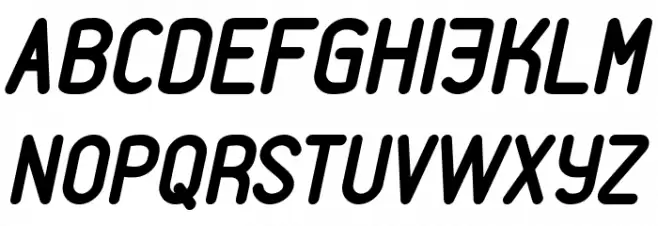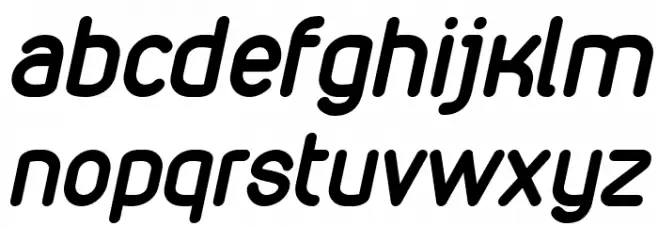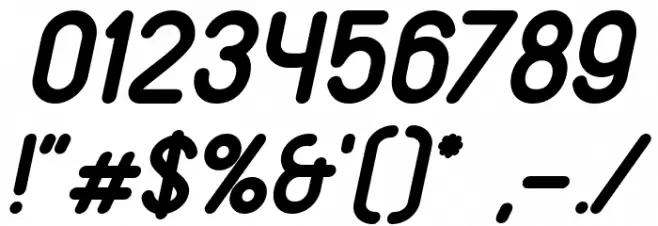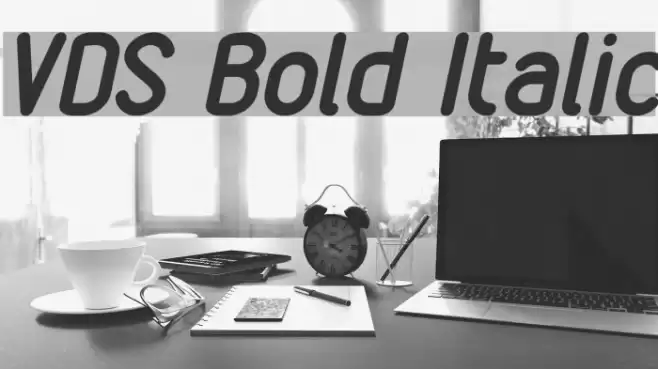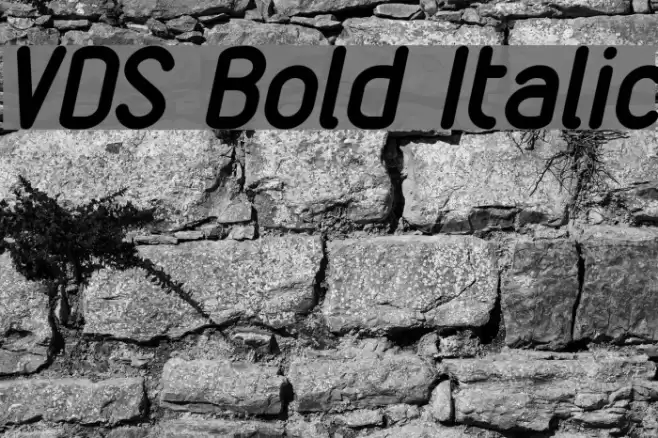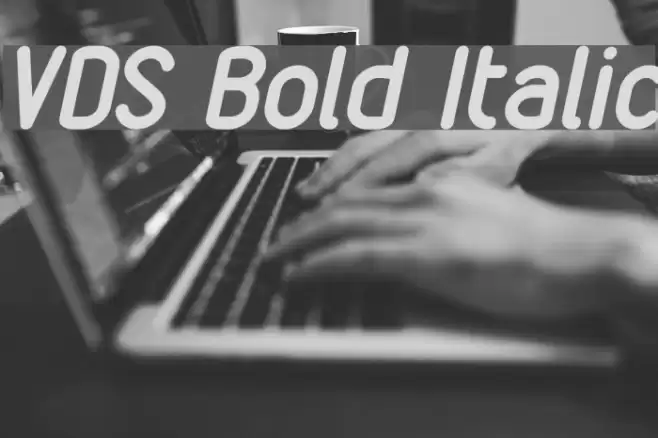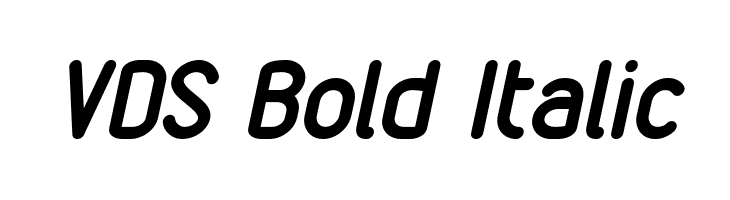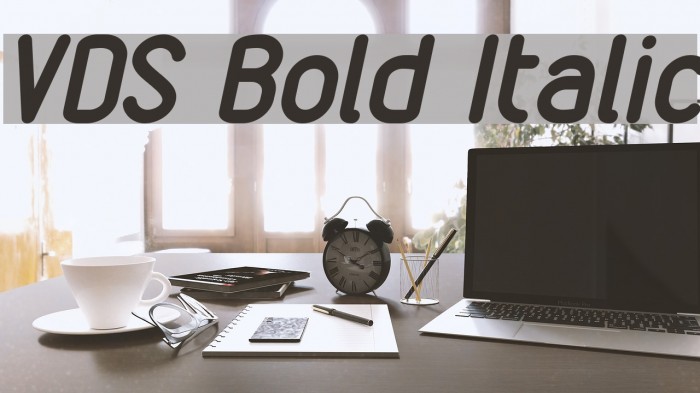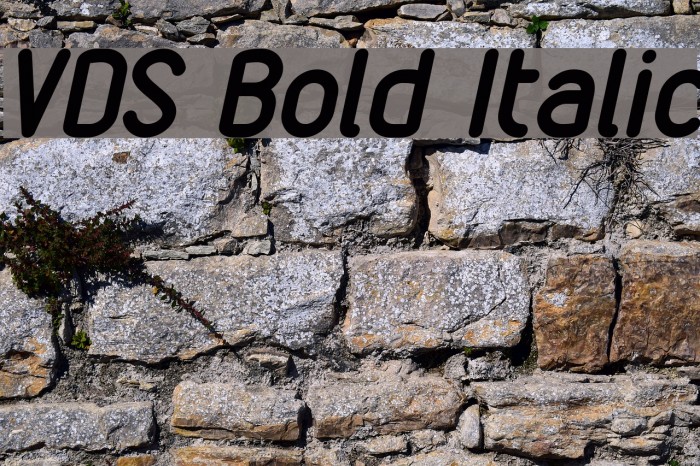
VDS Bold Italic
This font features a bold and italicized style, characterized by smooth, rounded edges and a slightly slanted orientation. The letters are evenly spaced, providing a clean and modern appearance. The uppercase and lowercase letters maintain a consistent weight, ensuring readability and balance. The numbers and special characters follow the same design principles, making them cohesive with the alphabetic characters. The overall look is sleek and contemporary, suitable for various design applications.
A bold, italicized font with rounded edges and a modern style.
- Proposed Projects: Ideal for branding, advertising, and digital media projects that require a modern and bold aesthetic.
- Use Case: Headlines, Logos, Digital Media